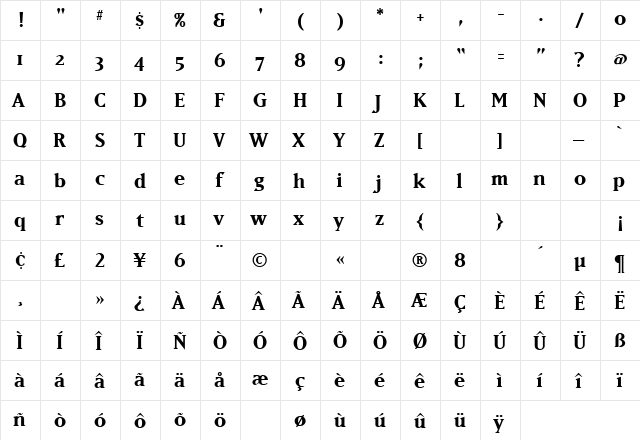
MatrixBold Regular
Design Context for MatrixBold Typeface
MatrixBold offers clean, dependable letterforms without strong stylistic allegiance, making it a practical choice for designers who need flexibility. Its bold stroke weight gives it real presence on the page.